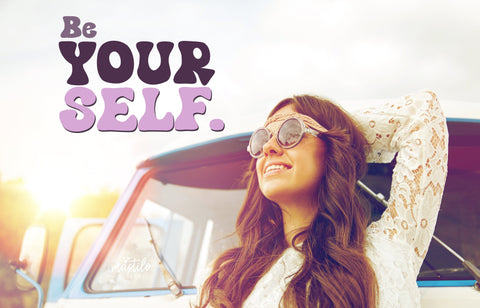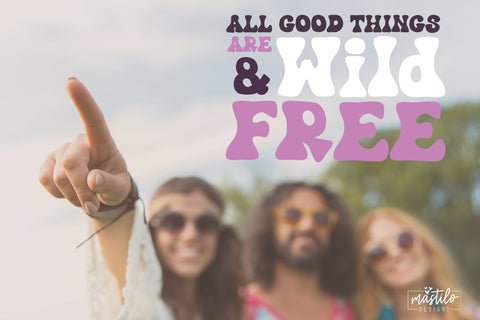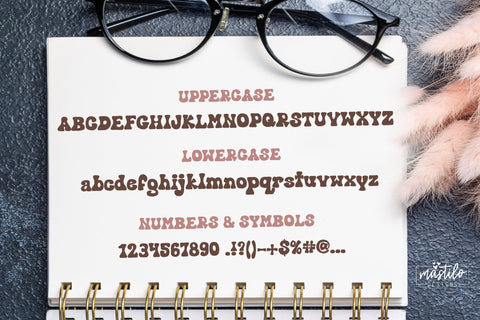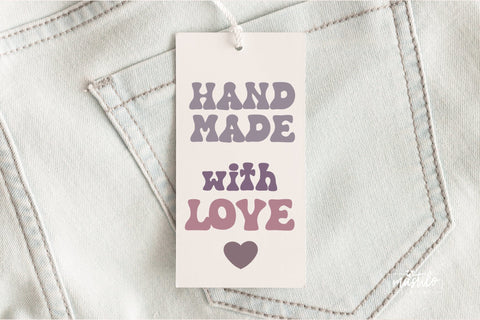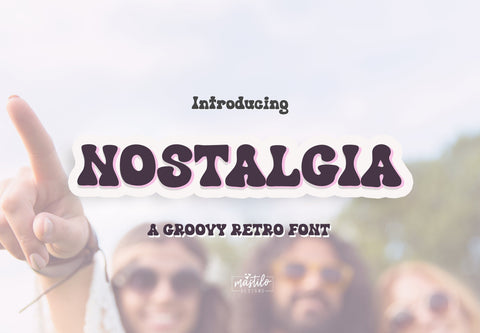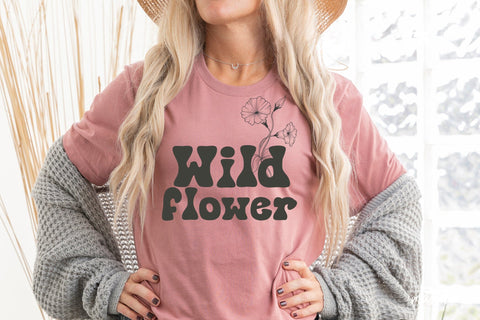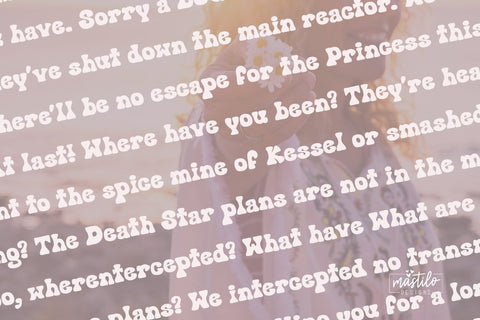
Hand Drawn Groovy Retro Font - Nostalgia, Modern Retro Font
Introducing NOSTALGIA, a retro groovy hand drawn display font. A versatile font, with possibilities for use for all your projects.
Nostalgia includes:
~ full upper + lowercase characters
~ numbers + punctuation